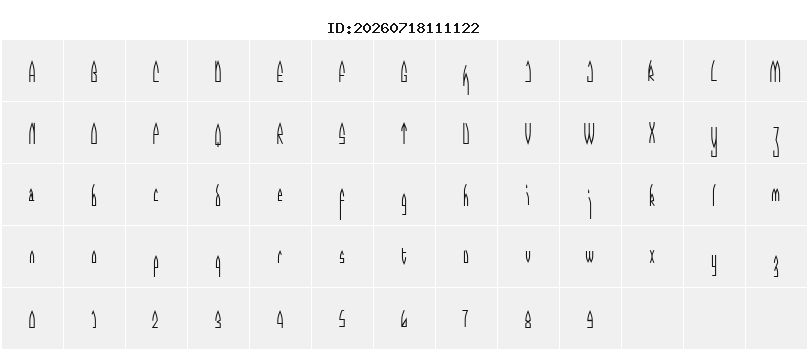
About CathedralGothic.ttf
CathedralGothic.ttf is a modern, elegant sans-serif font designed for ultimate readability and visual harmony. Perfect for branding, headlines, web design, and print materials.